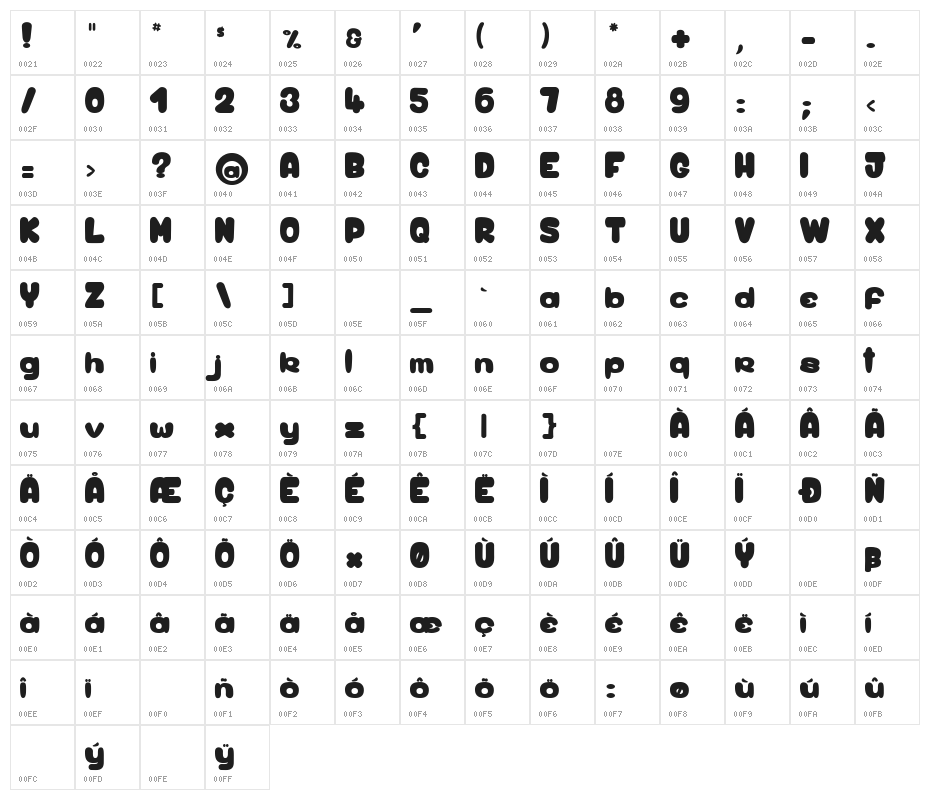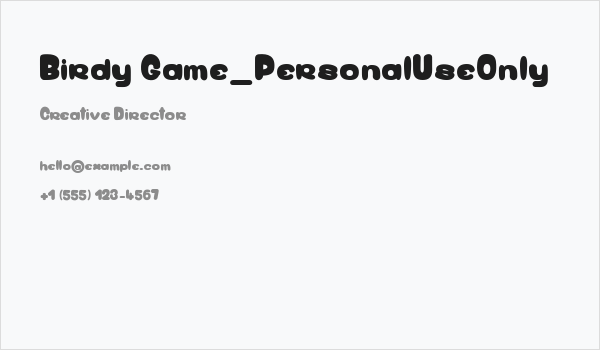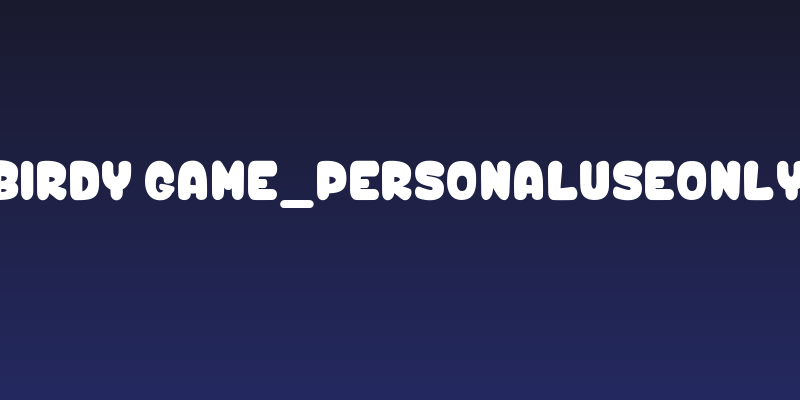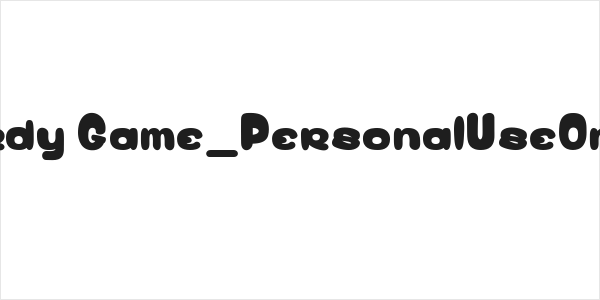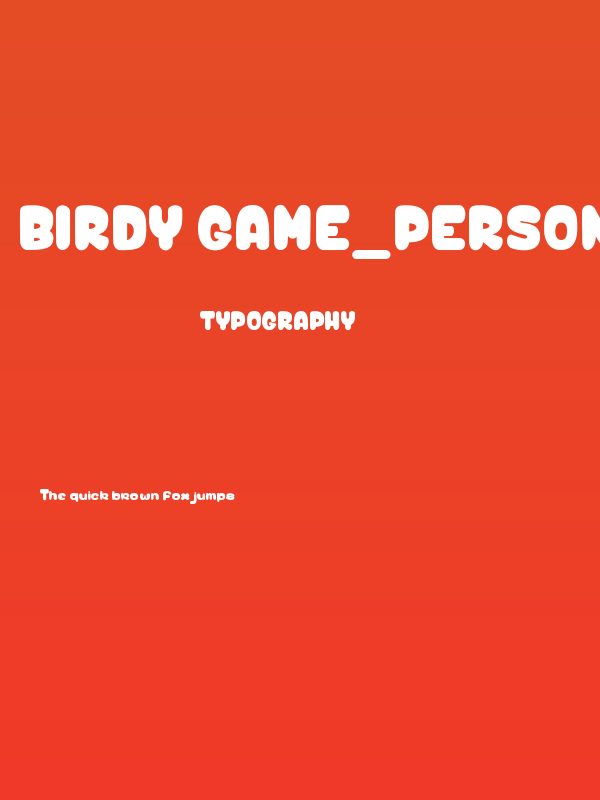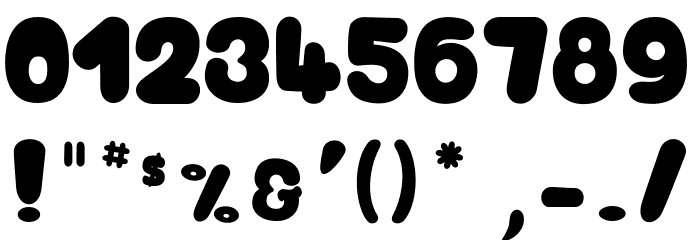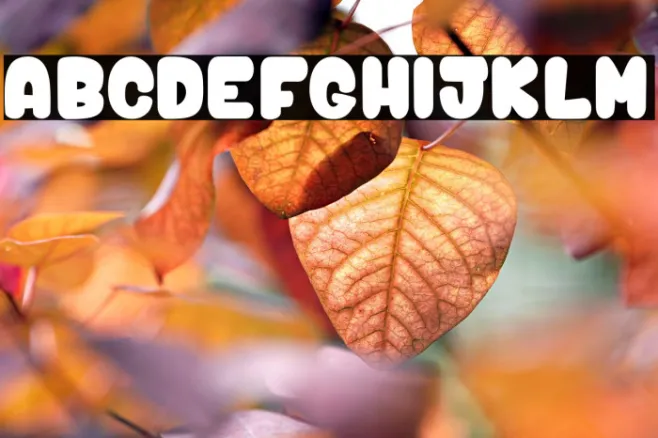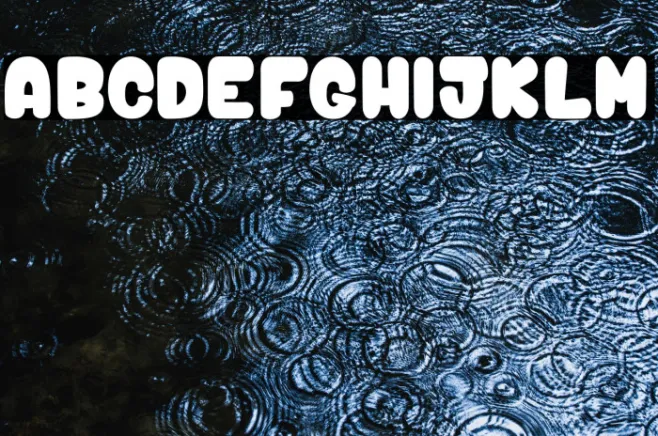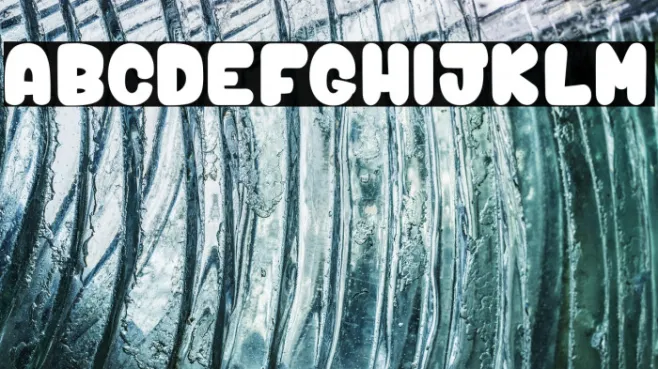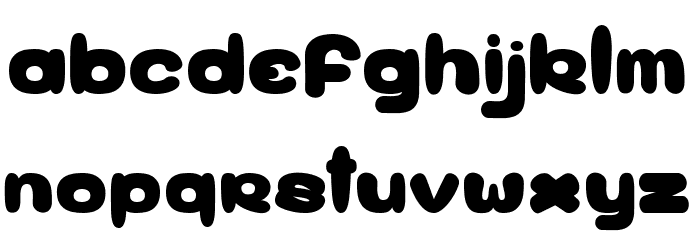
Birdy Game_PersonalUseOnly Font
Birdy Game_PersonalUseOnly Description
This font features a playful and bold design with rounded edges and a bubbly appearance. The characters are thick and have a consistent stroke width, giving them a strong presence. The uppercase and lowercase letters maintain a uniform style, with a slightly whimsical touch that adds to the font's charm. The numbers and special characters are designed to match the overall playful aesthetic, making them suitable for creative and informal projects. The font's rounded and smooth curves contribute to its friendly and approachable look.